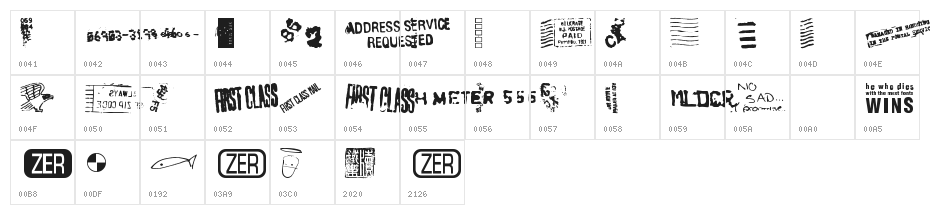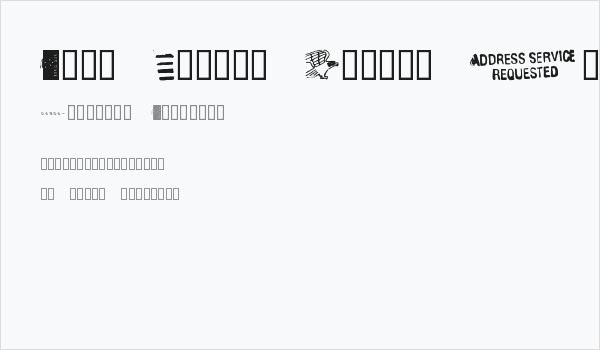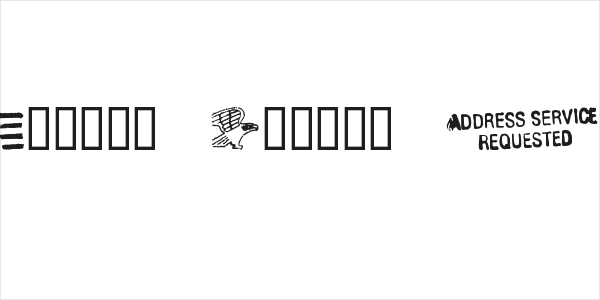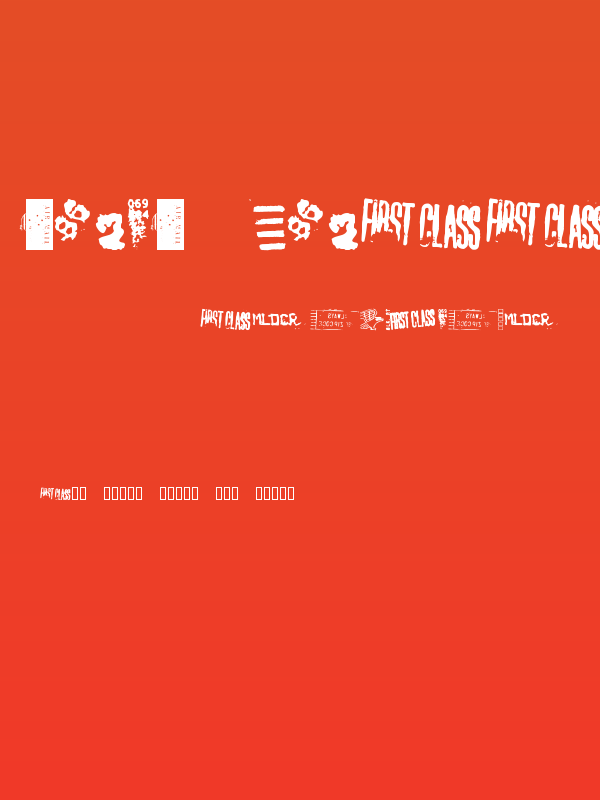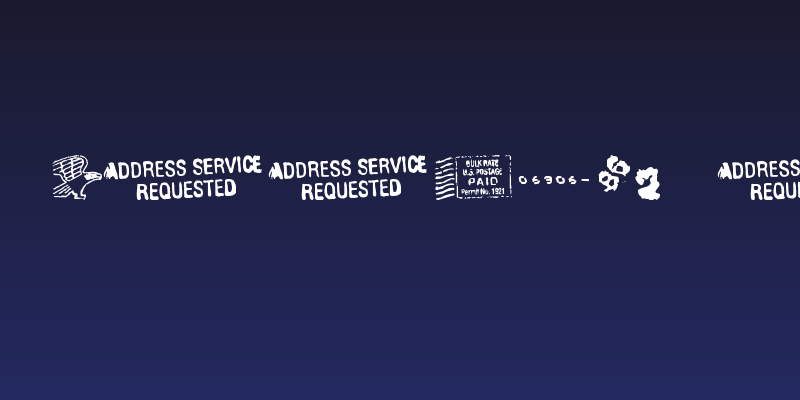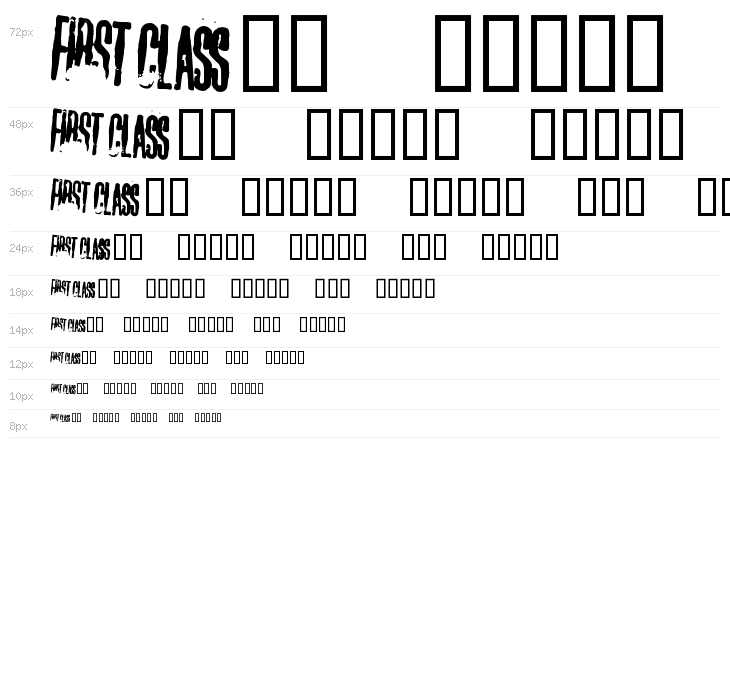
Dead Letter Office Fifteen Font
Dead Letter Office Fifteen Description
This font is a decorative and playful typeface that mimics the appearance of postal stamps and markings. It features a distressed and uneven texture, giving it a vintage and worn-out look. The characters are bold and slightly irregular, with varying levels of ink saturation that create a unique, hand-stamped effect. The uppercase letters are prominent, while the lowercase letters maintain the same style, ensuring consistency throughout. Numbers and special characters are included, each with their own distinct stamp-like appearance. This font is ideal for projects that require a nostalgic or retro aesthetic, such as vintage posters, themed events, or creative packaging designs.